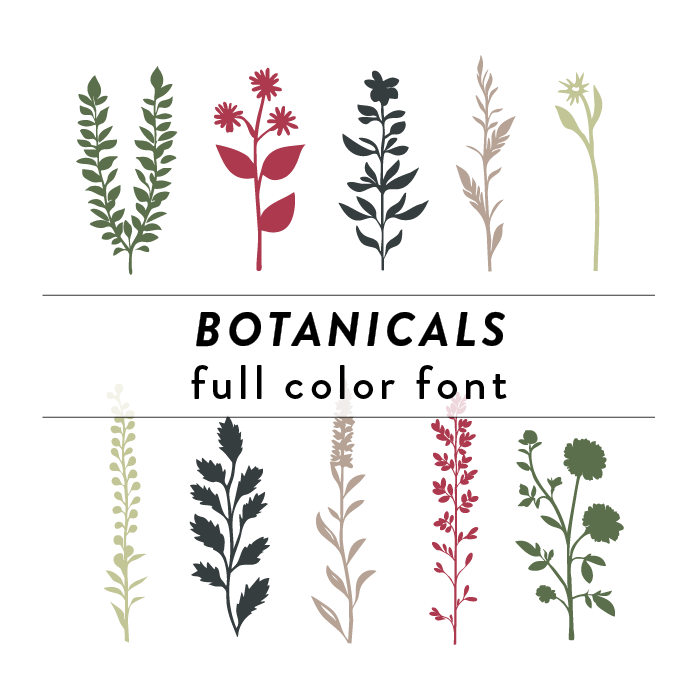
Botanicals Full Color Font is a whimsical and vibrant font design inspired by nature. It features intricate floral and botanical elements such as flowers, trees, branches, and leaves. This decorative font is perfect for adding a touch of natural beauty to any DIY project.